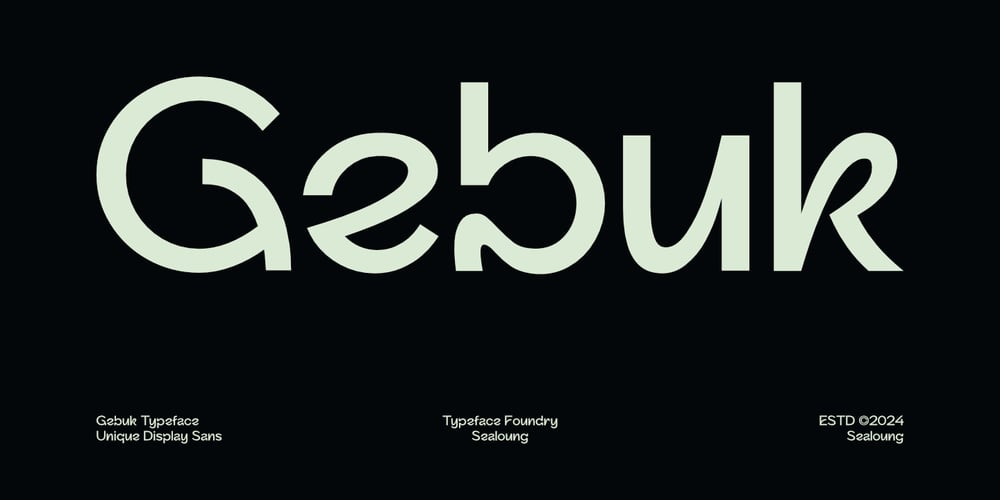
Gebuk Font Family was designed by Saiful Anwar and published by Sealoung. Gebuk contains 1 styles and family package options. Gebuk – Unique Display Sans FontGebuk is a bold and distinctive display sans font, designed to make a statement. With its clean lines and strong character, Gebuk is perfect for adding a modern and unique touch to your design projects. Whether you’re working on posters, branding, packaging, or digital media, this font delivers a striking visual impact.Its solid yet minimalist letterforms provide a powerful yet readable presence, making it an ideal choice for attention-grabbing headlines, logos, and advertisements.Key Features: Unique, bold style for strong visual impact Perfect for headlines, posters, and branding projects Includes lowercase and uppercase letters, numbers, and full punctuation With Gebuk, your designs will stand out and leave a lasting impression. Add this one-of-a-kind font to your creative toolkit today!